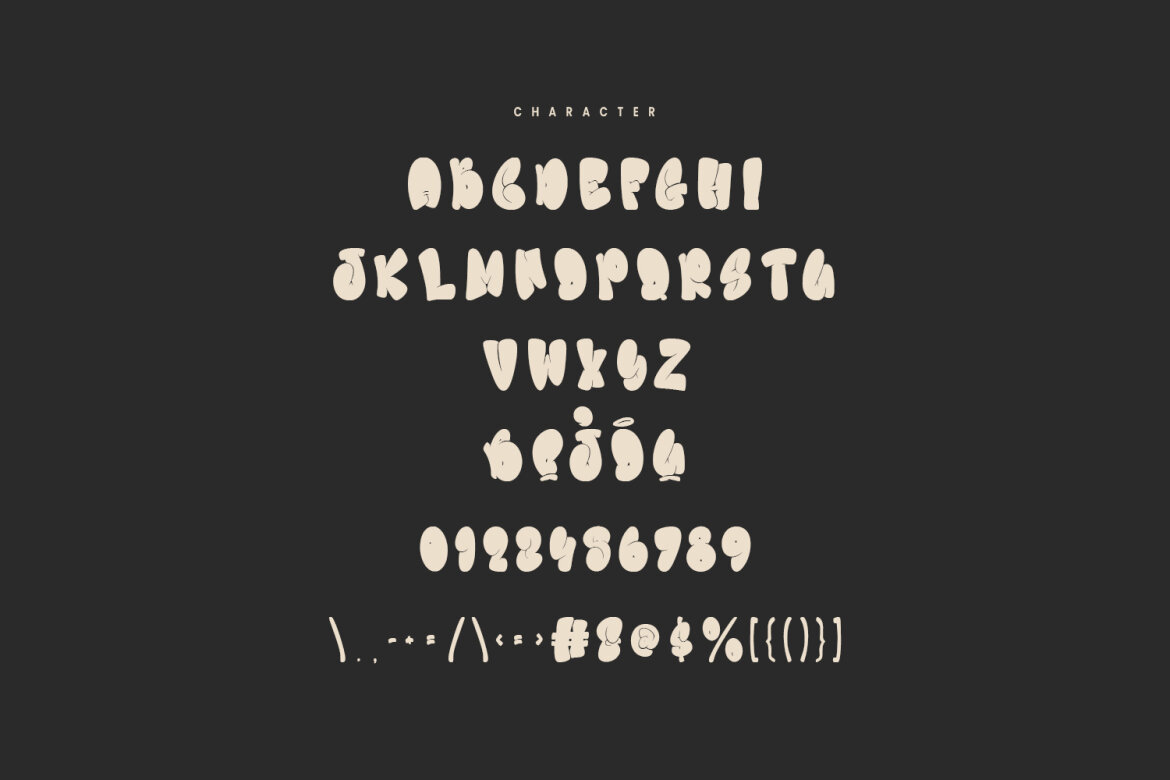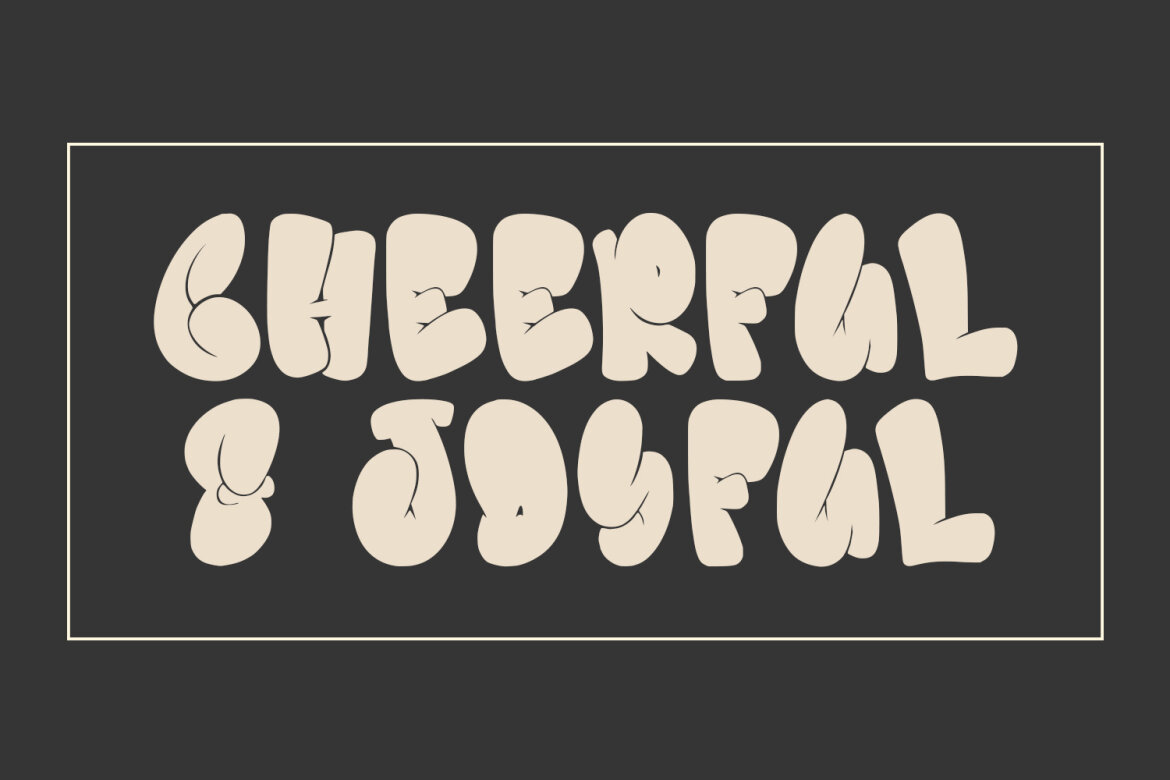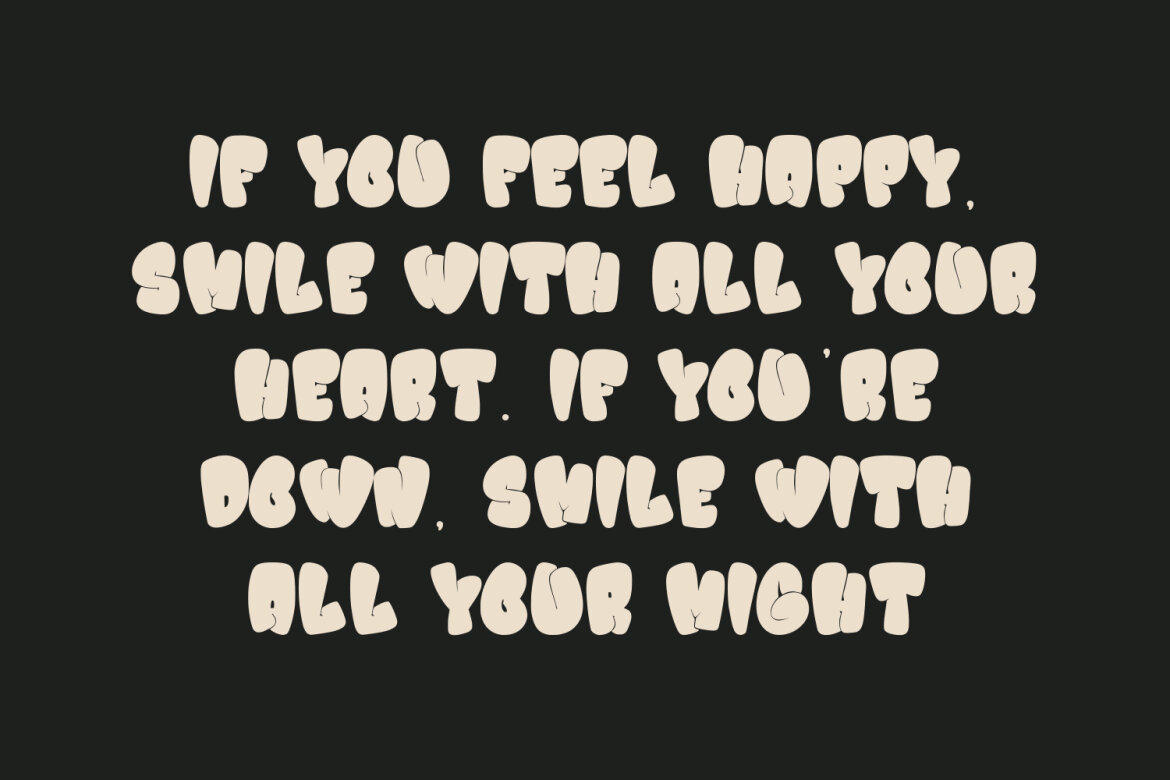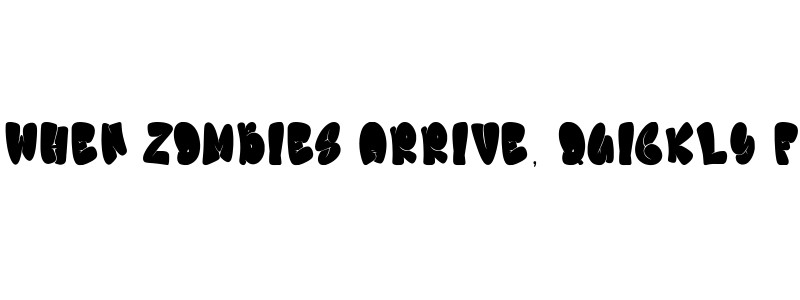
Liztoo Graffiti Bubble FREE Font
Liztoo graffiti display font. With bold stroke, fun character with alternates. To give you an extra creative work. Liztoo graffiti display font support multilingual language. This font is good for logo design, Social media, Movie Titles, Books Titles, a short text even a long text letter and good for your secondary text font with script or serif. Make a stunning work with Liztoo graffiti display font.